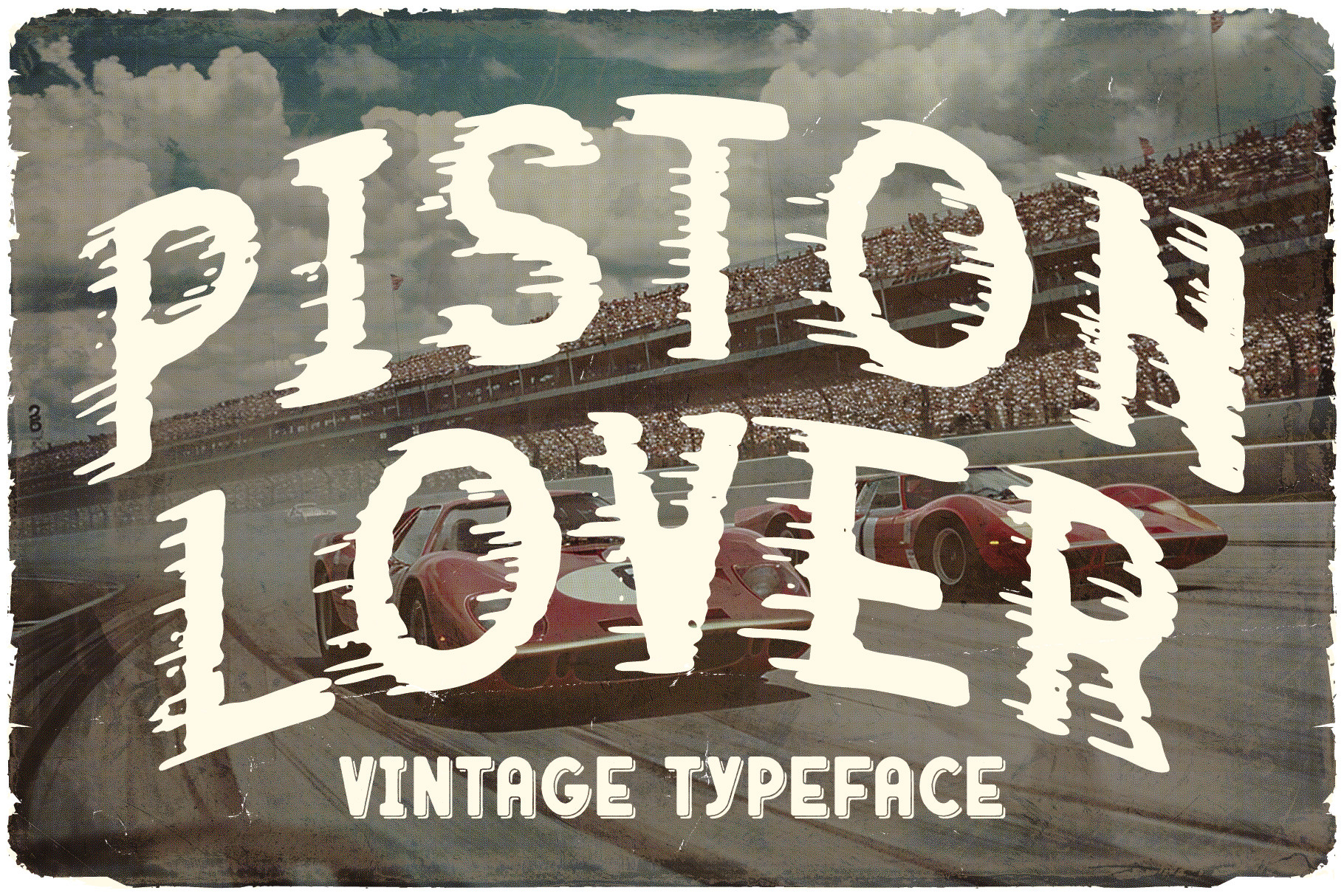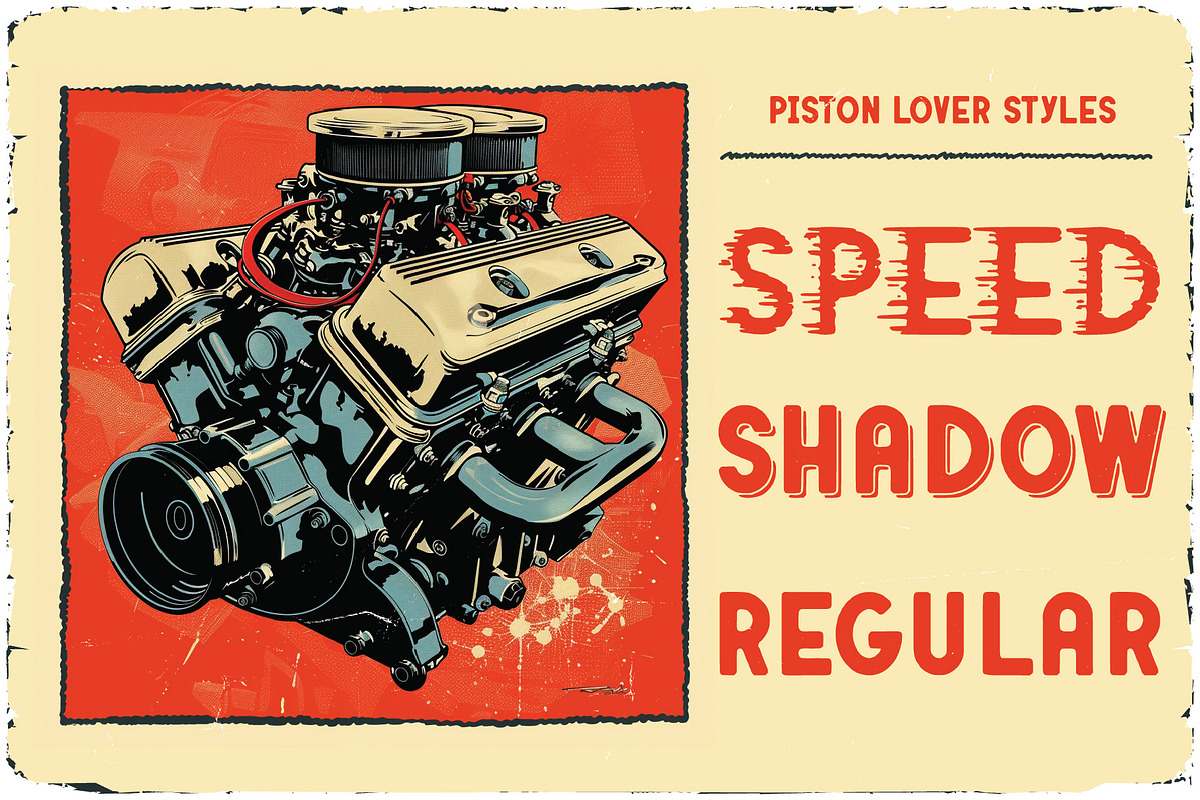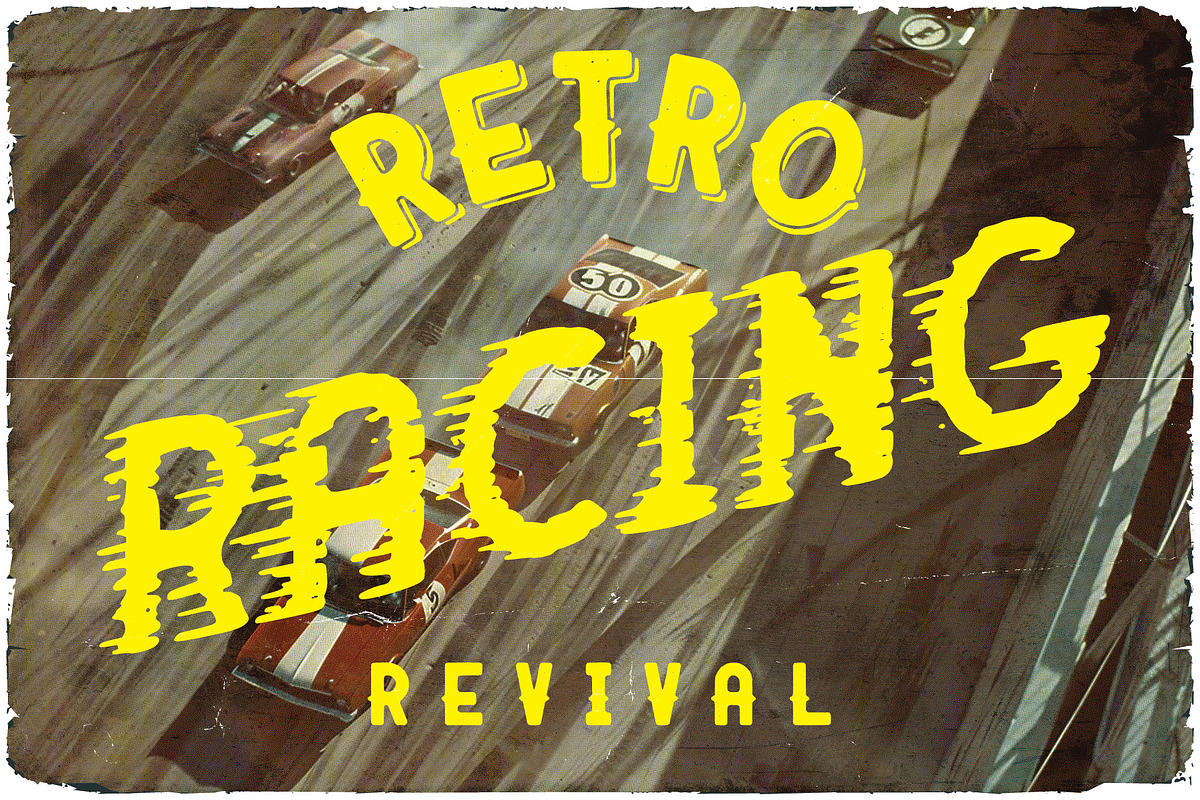
Piston Lover Retro Racing Font
Unique, creative, vintage, retro, racing, sport & label sans serif font set. Comes with multilingual support & 3 fomnt styles - great for your new logo, monogram or branding project.
- 3 font styles - Regular & Speed & Shadow
- Great for retro or vintage style branding projects